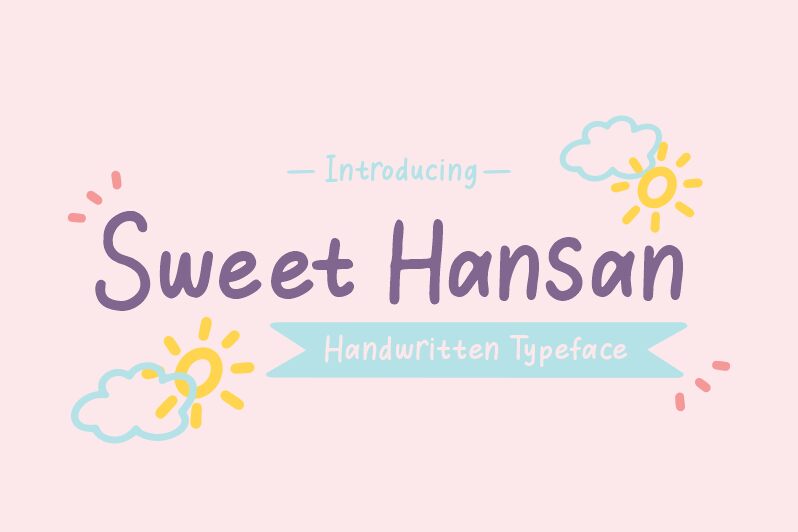
Sweet Hansan, an enchanting semi-light handwritten font designed by Aysa Putri and Situjuh Nazara, is the perfect choice for your next creative project. From wedding invitations to social media graphics, this font adds a touch of whimsy and elegance to any design. Its unique style is perfect for branding projects, logos, and packaging designs that require a personal touch. Sweet Hansan's delicate curves and playful flourishes make it ideal for feminine designs such as beauty products or fashion brands but it also works well with more casual themes like food blogs or travel journals. Add some charm to your next project with Sweet Hansan!